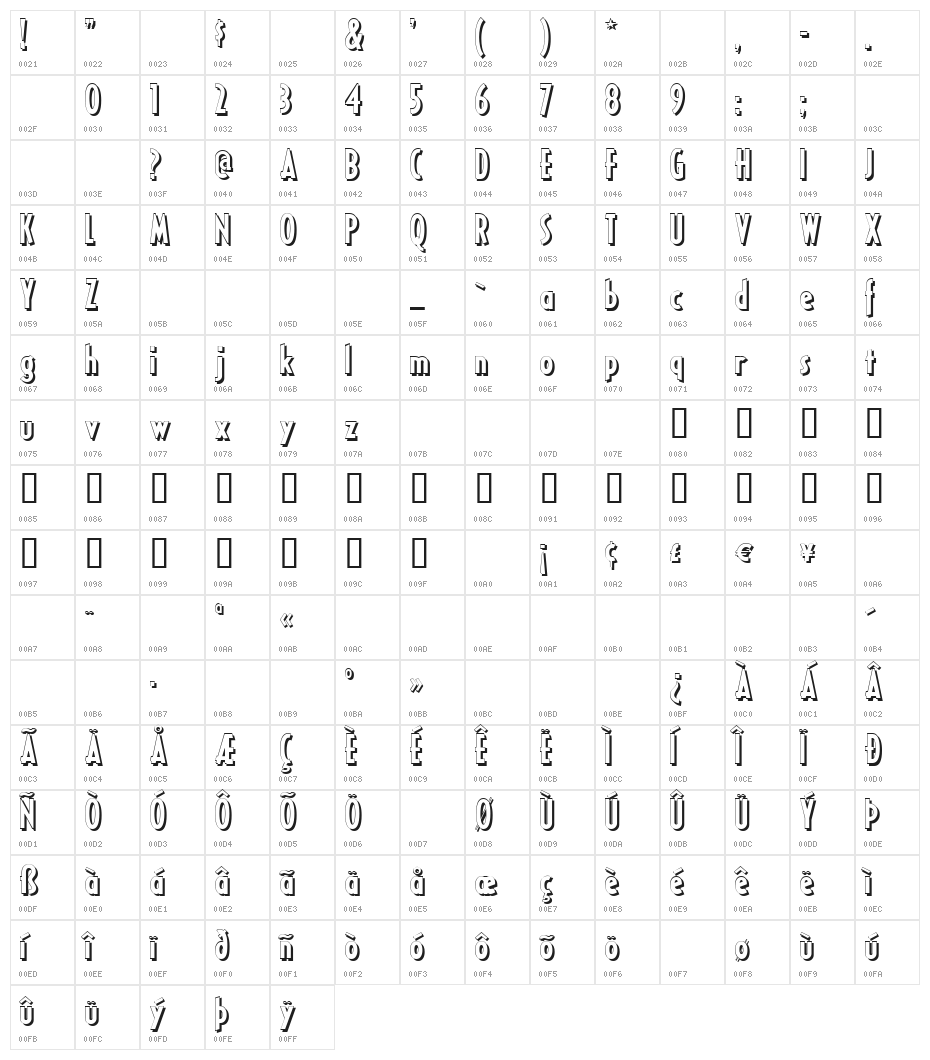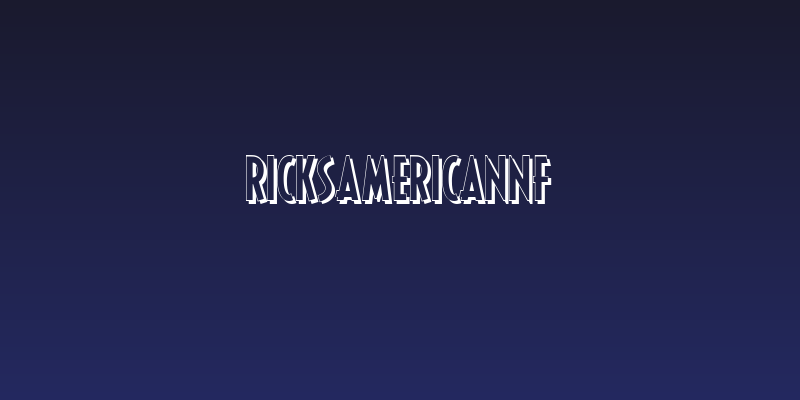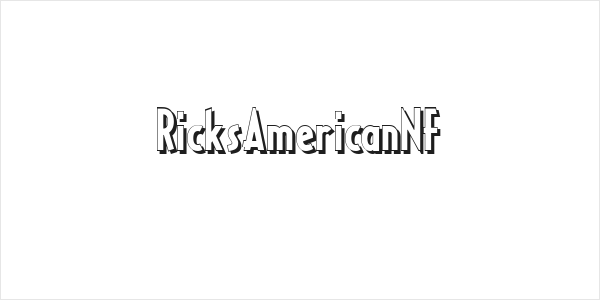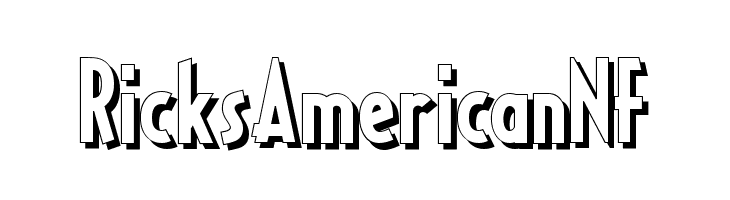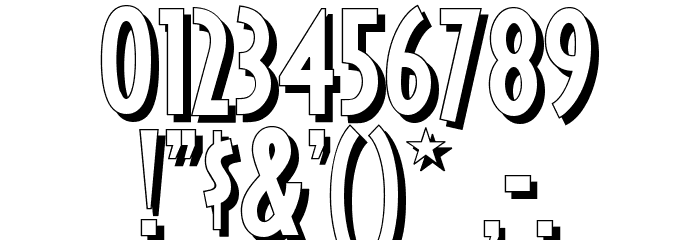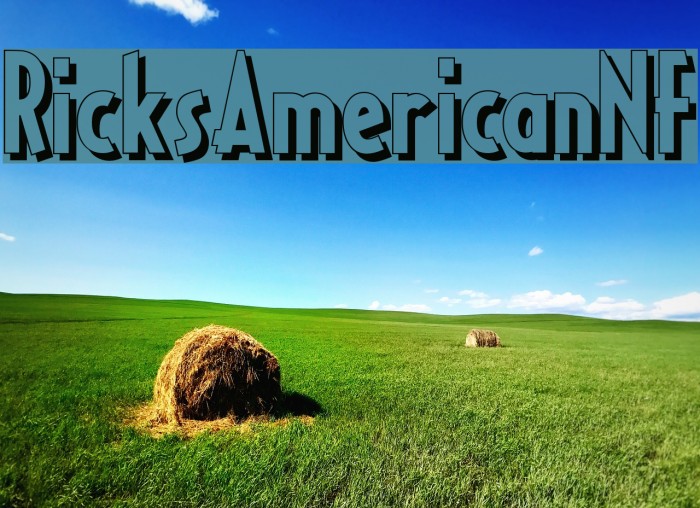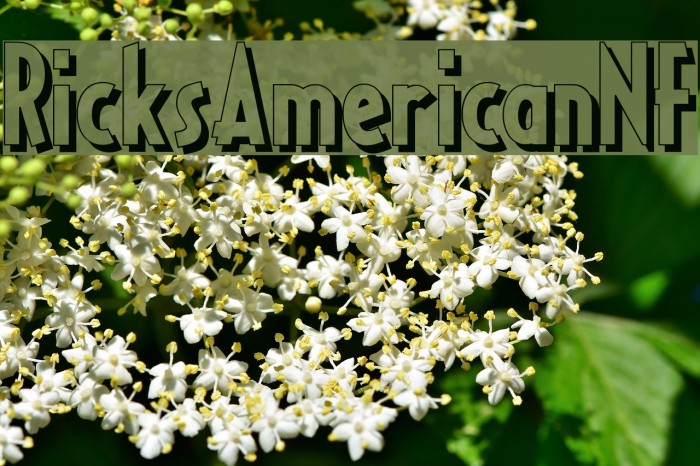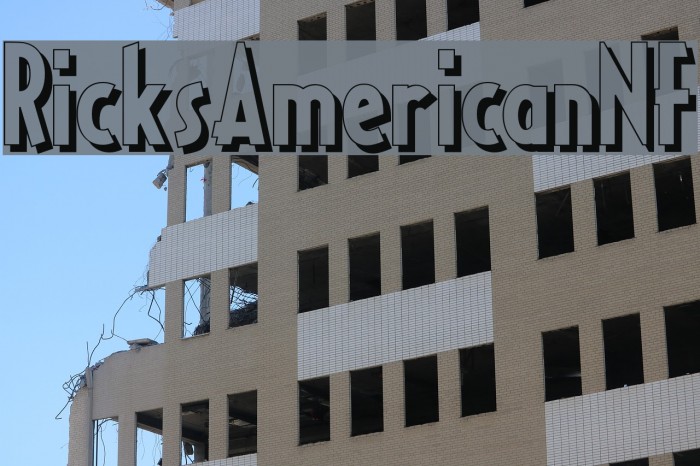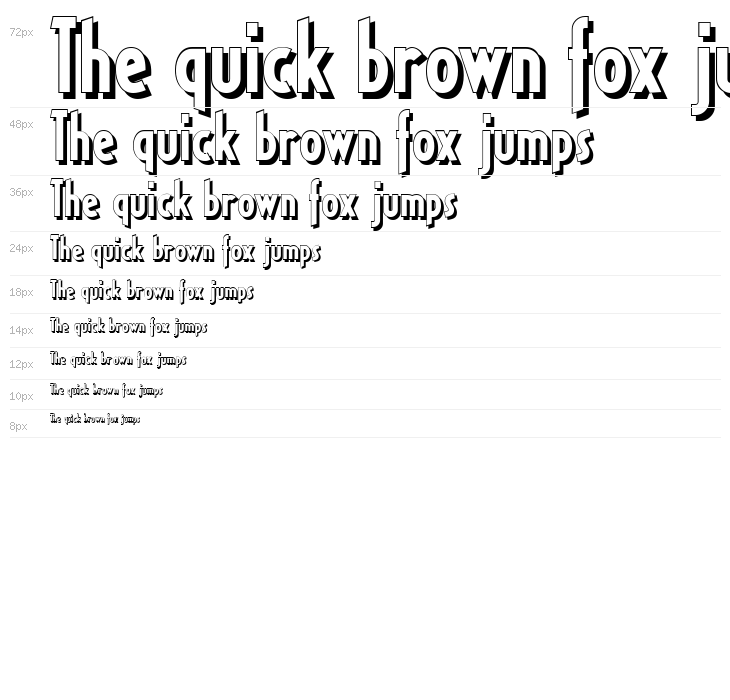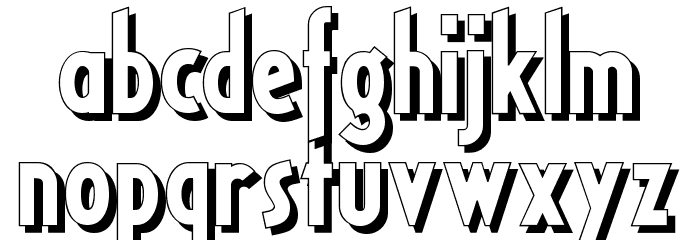
RicksAmericanNF Font
RicksAmericanNF Description
This font features a bold and dynamic style with a strong 3D effect, created by a thick shadow that gives each character a sense of depth and dimension. The uppercase and lowercase letters are designed with a consistent width, providing a uniform appearance. The numerals and special characters maintain the same boldness and shadow effect, ensuring cohesion across all elements. The font's playful yet assertive style makes it ideal for eye-catching designs.
| Proposed Projects | Ideal for posters, headlines, logos, and any design requiring a bold, attention-grabbing typeface. |